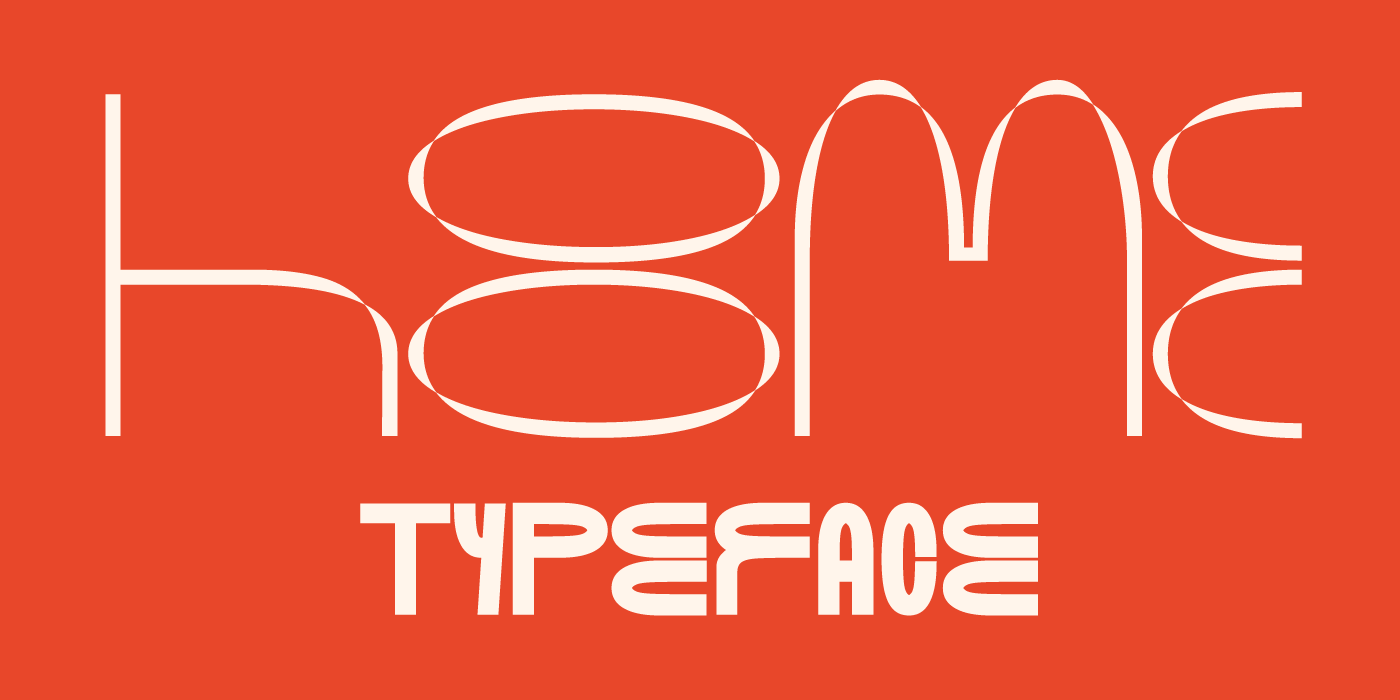
From the "OO" to the world
While we were locked up at home we have developed a variable type and also modular. We start from the double "o" as the main module from where we get the curved pieces and proportions to develop the rest of the typography. We have also tried to alter the traditional metrics of typography, why not? We propose the whole family to double height having as reference the space between the two "o".
HOOME is an experiment. To be honest, our first experiment with variable typography. And we thought: since it is the first, why not complicating our lives and trespassing the "light" of the family? Why don't we give it one more twist at the end and get it to have torsion?
This led us to a happy accident: at the same time that we modified the weight of the font, we also changed the modulation of each letter, so we have an axis that is actually two... That in theory is wonderful, and in practice... is wonderful too. It's a little unpredictable how each letter will behave with these variables, but that's what we love.